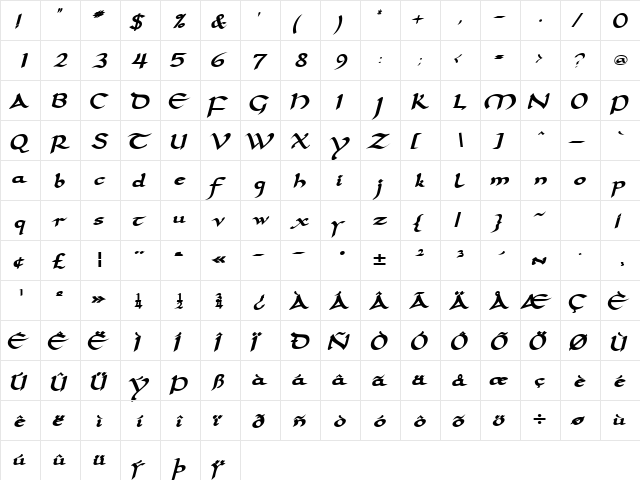
SamovarSSK BoldItalic
Design Context for SamovarSSK Typeface
SamovarSSK is a composed and adaptable typeface that performs quietly and consistently across a wide range of design contexts. Its italic angle brings a sense of urgency and motion to the letterforms. The heavy weight commands attention and anchors typographic hierarchies.